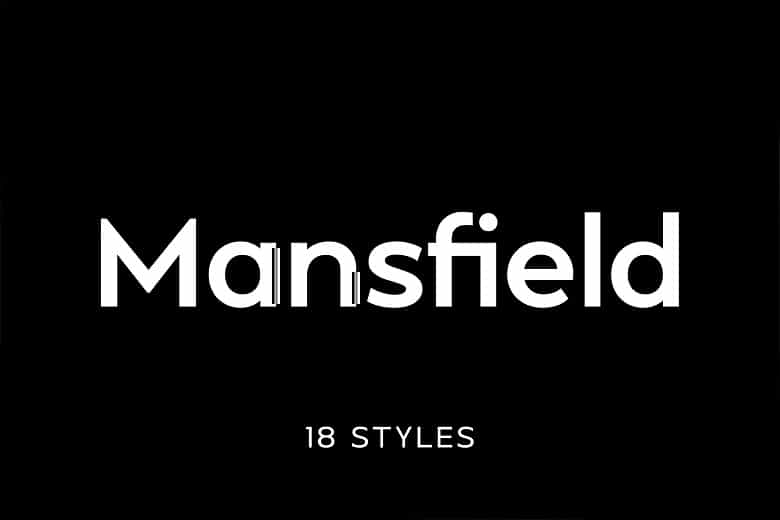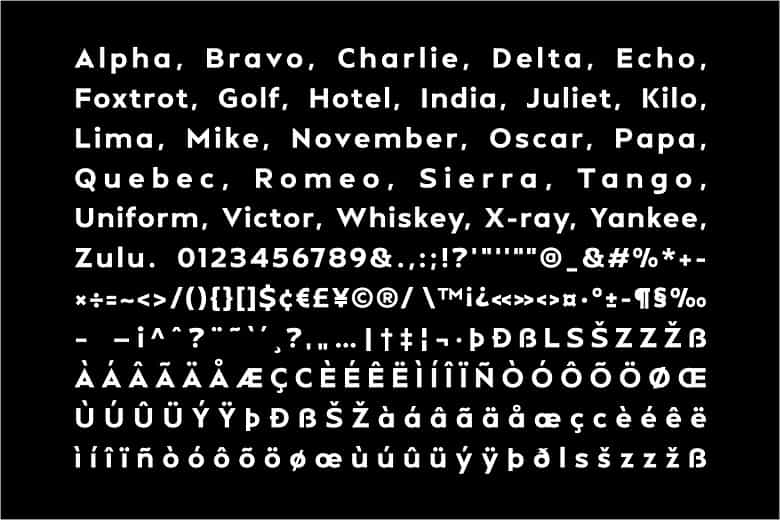
Mansfield is a new modern geometric sans-serif font family, based on the world’s most famous typography of the twentieth century, including Futura and the avant-garde style. Mansfield shows the neo-grotesque features in the lettering – the shapes are simple and clear, edges are sharp and there is not much contrast in stroke weights. Due to its height and its design, it is suitable for different kinds of projects, ranging from branding to editorial projects.